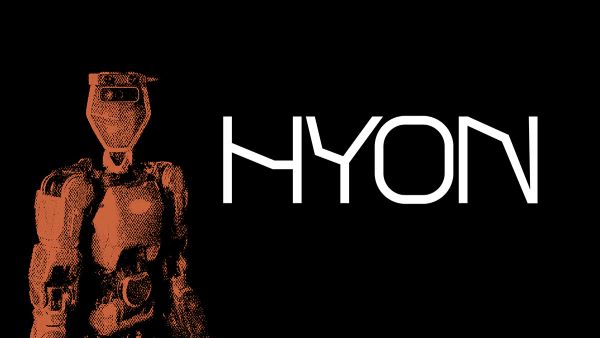
HYON Font
HYON by Slide Graphic is a variable geometric font with a visual aesthetic rooted in robotics, technology, and science fiction — a visual world of mechanical precision, futuristic machinery, and the particular clean-edged graphic language associated with cutting-edge engineering and digital design culture. Free for personal use.
HYON is a futuristic geometric variable display typeface in our free font collection, designed by Slide Graphic — a creative studio based in Hungary with a focused interest in technology-forward type design and visual systems that bring the aesthetics of robotics and digital engineering into typographic form. Browse our full library of free fonts and discover more distinctive typefaces crafted by independent designers around the world.